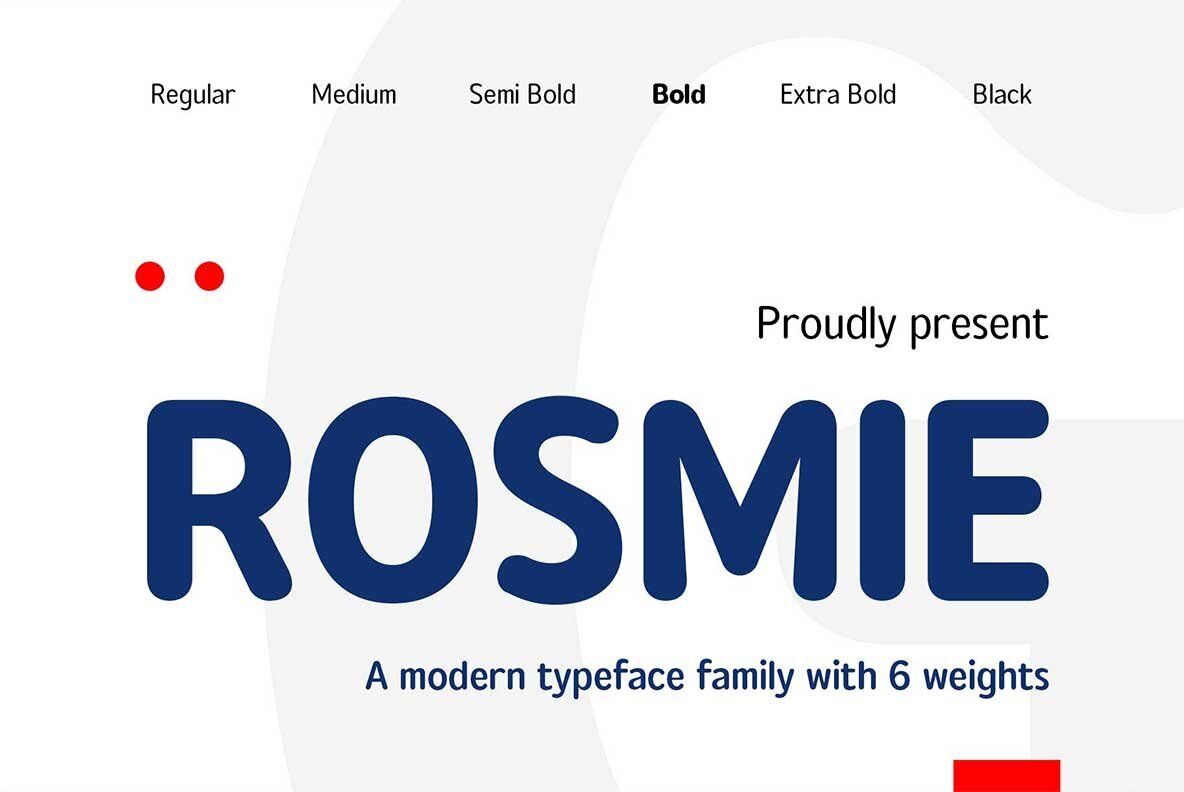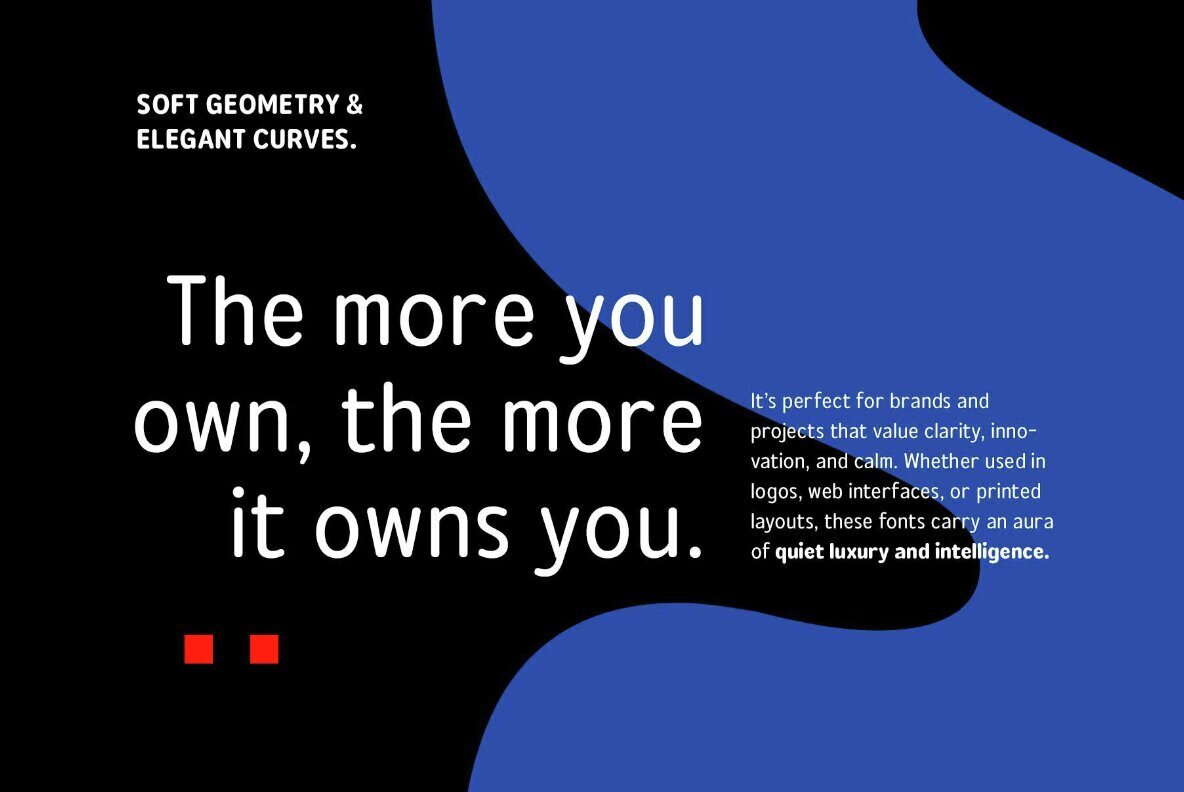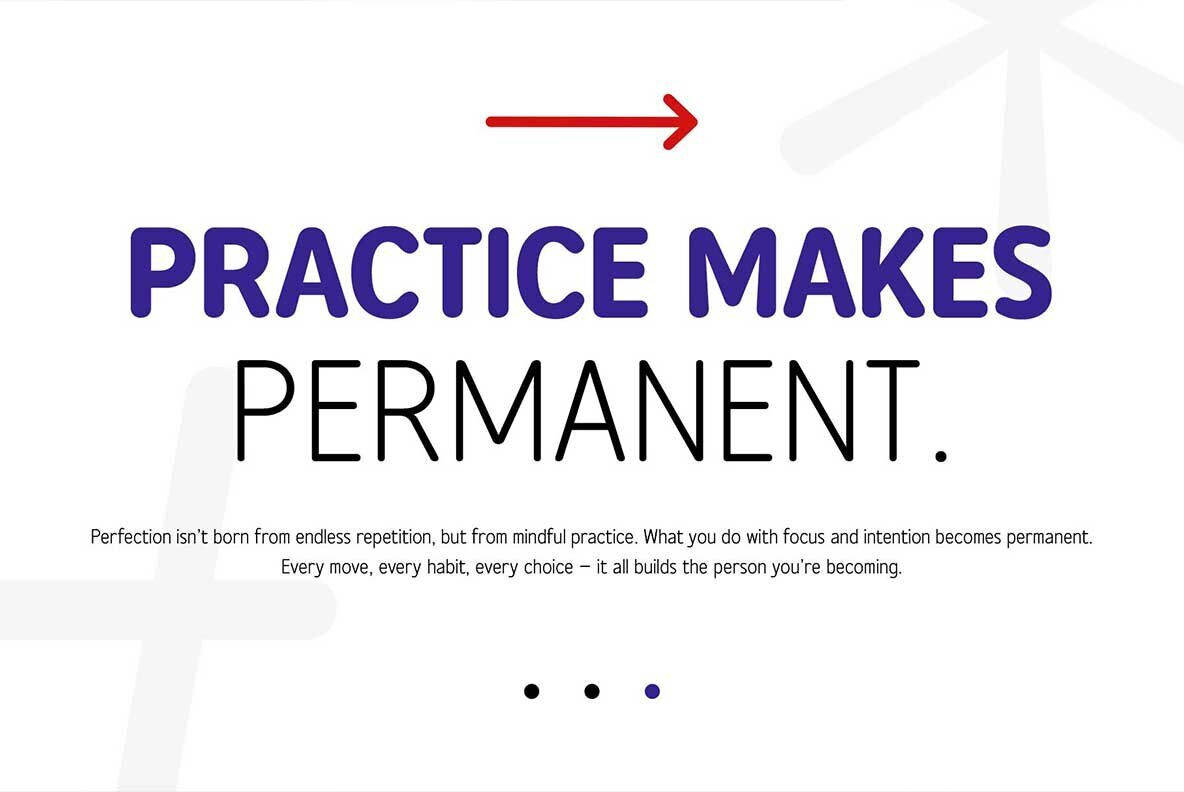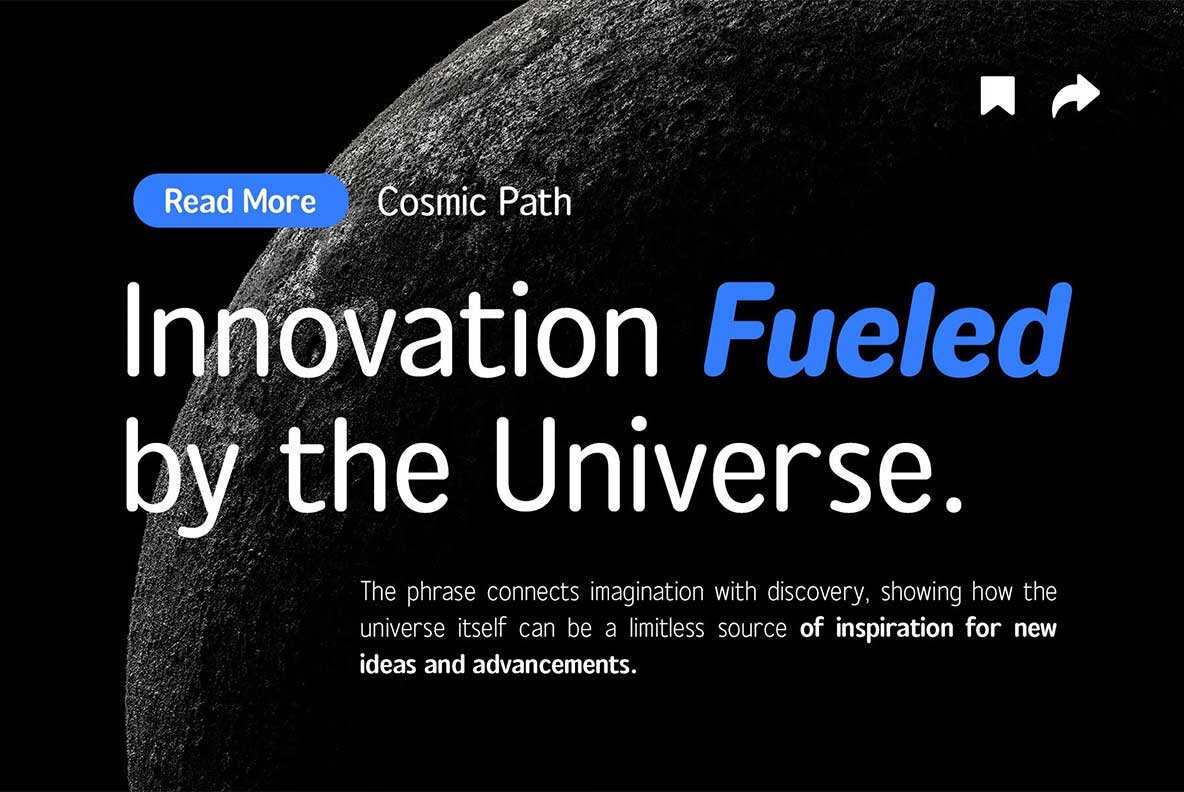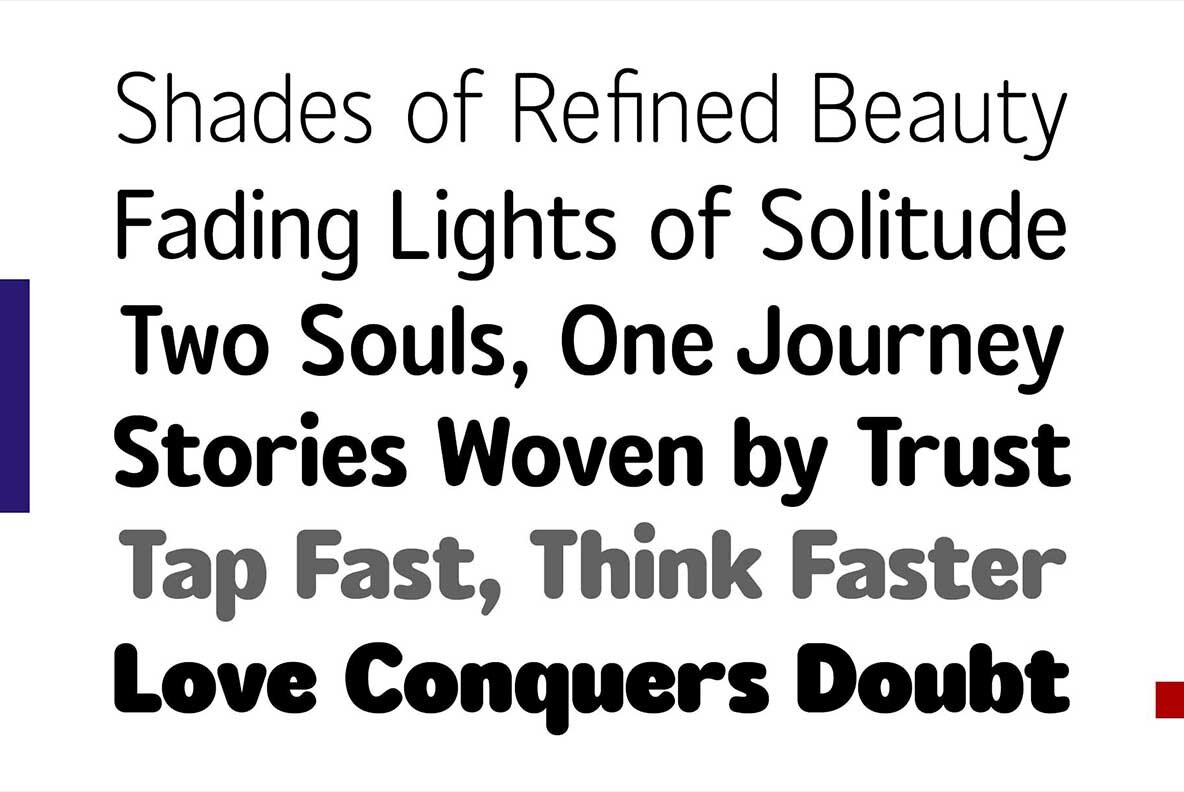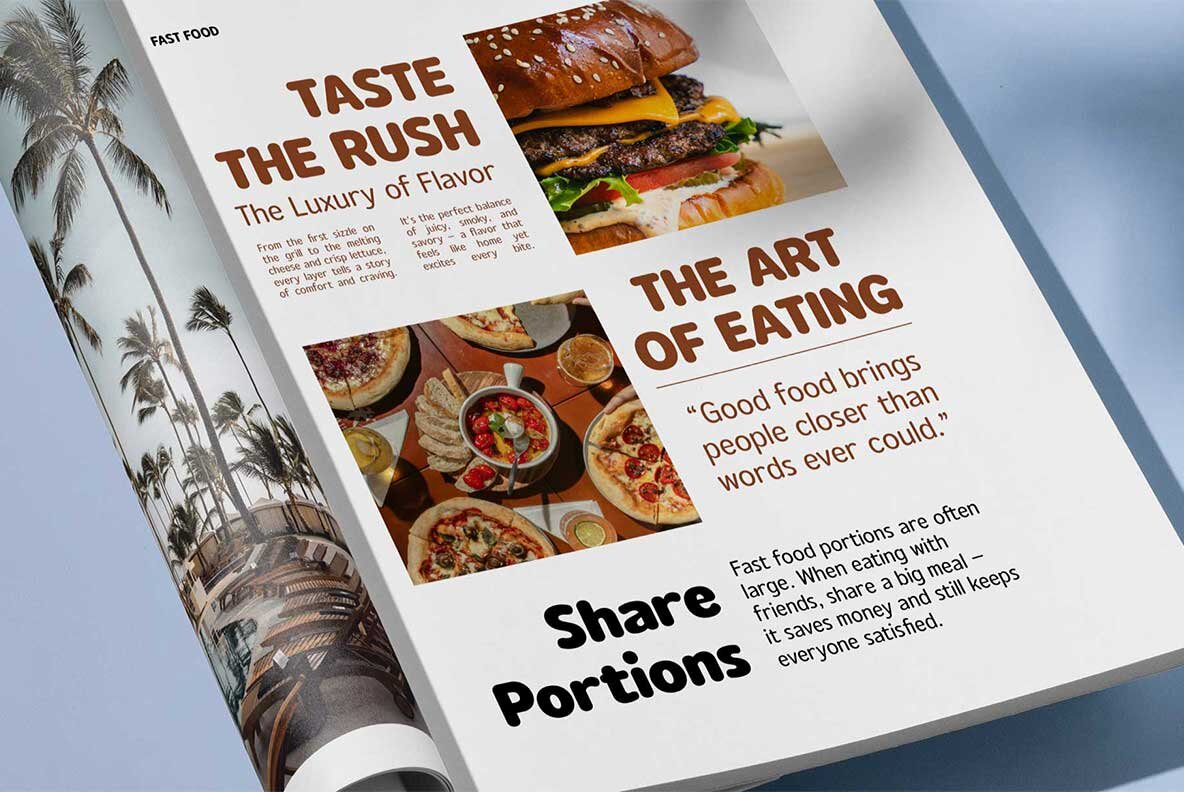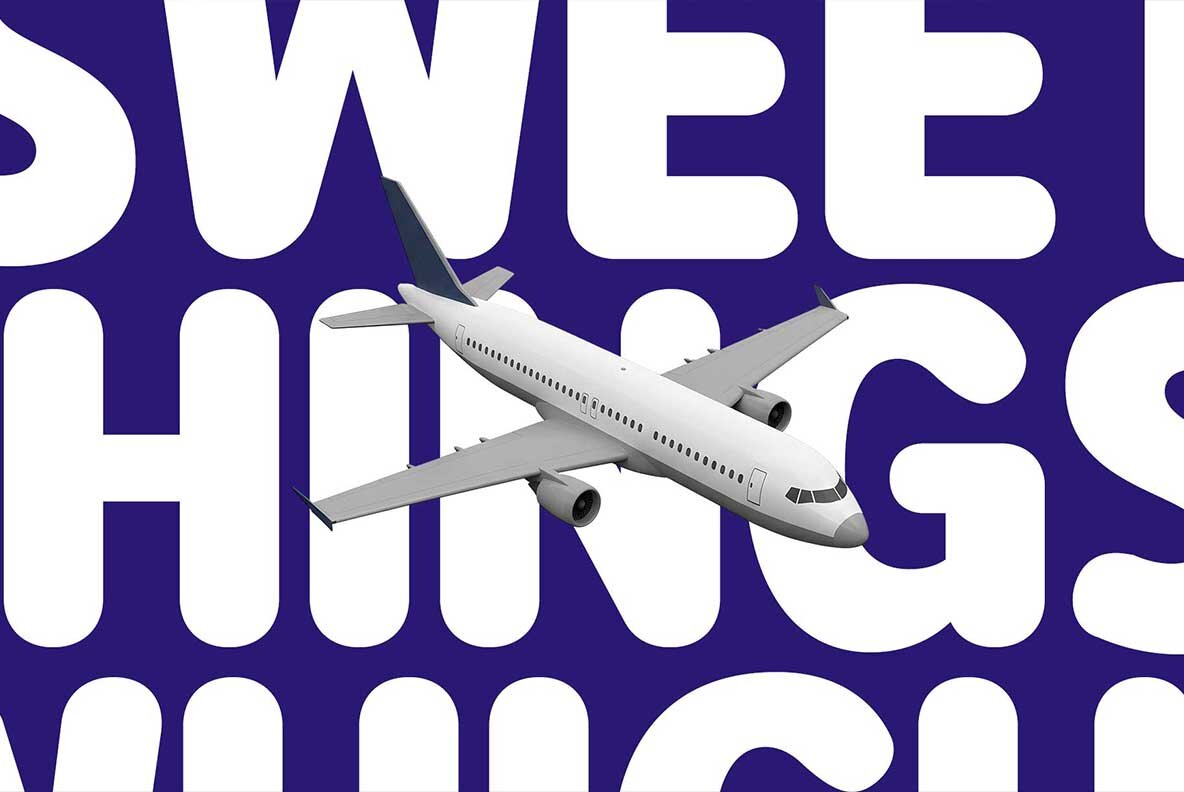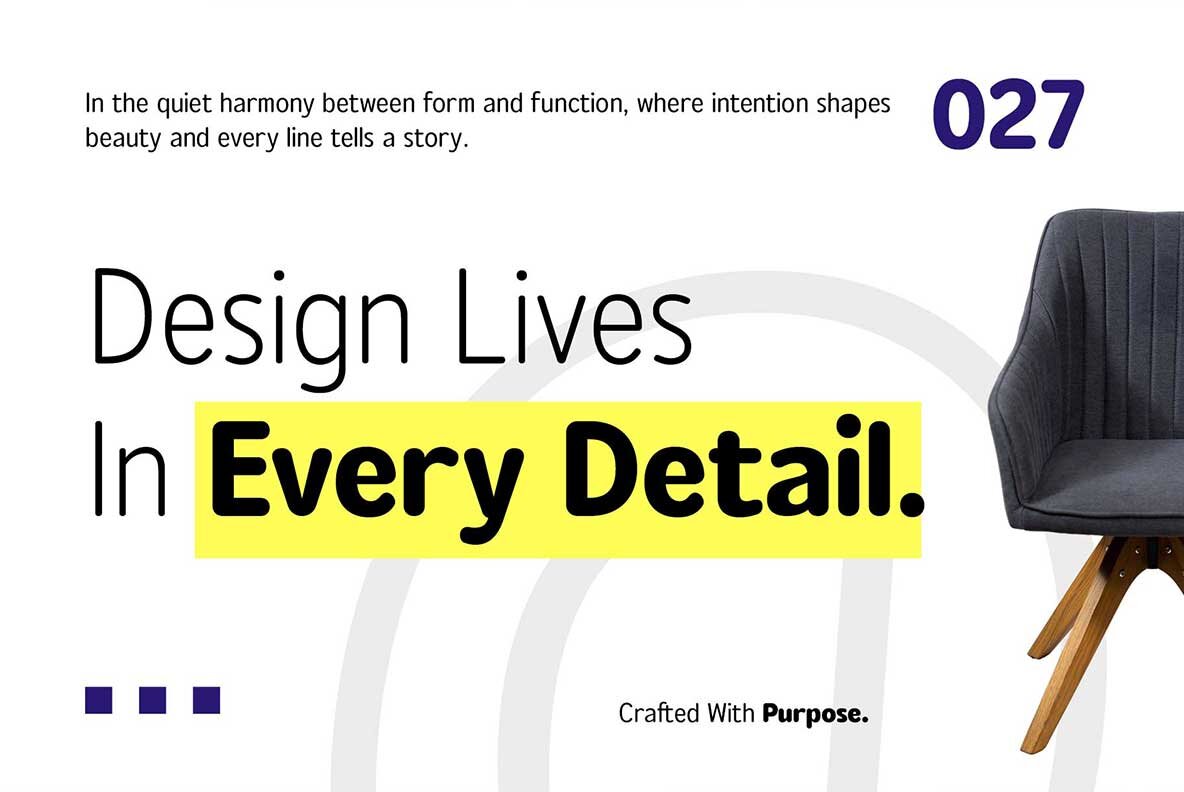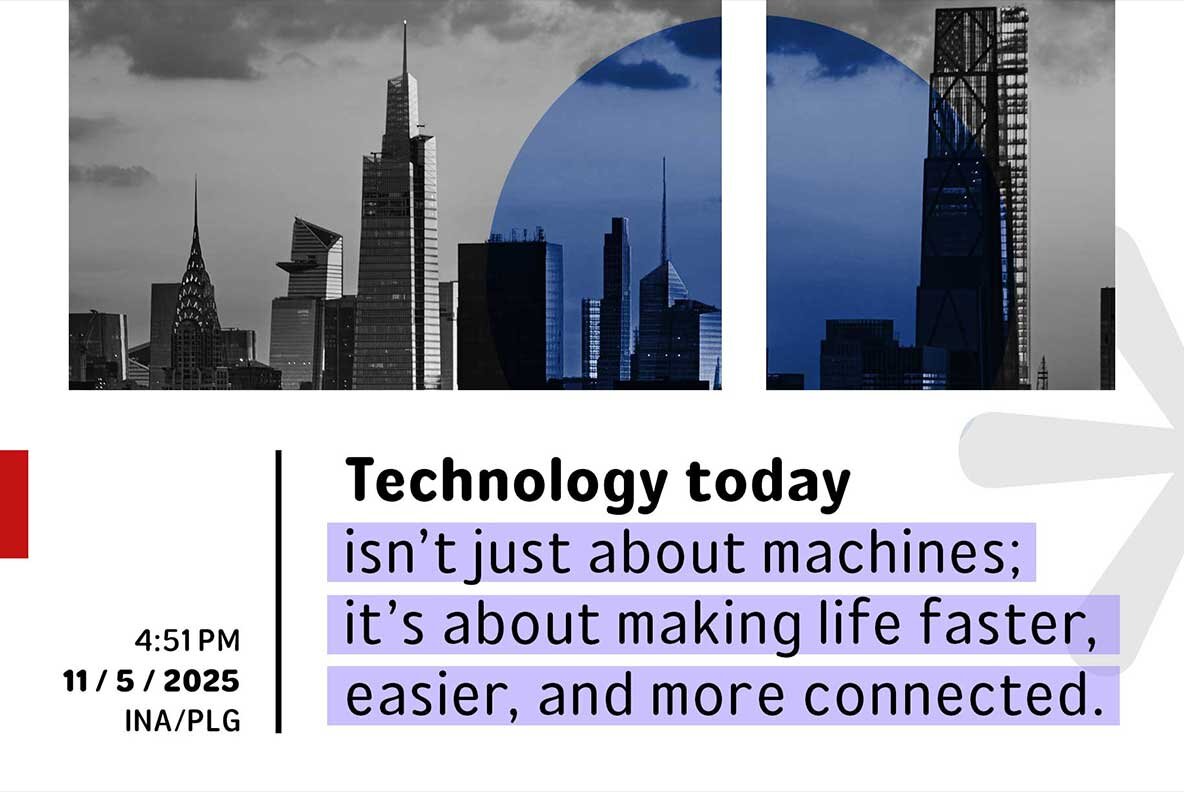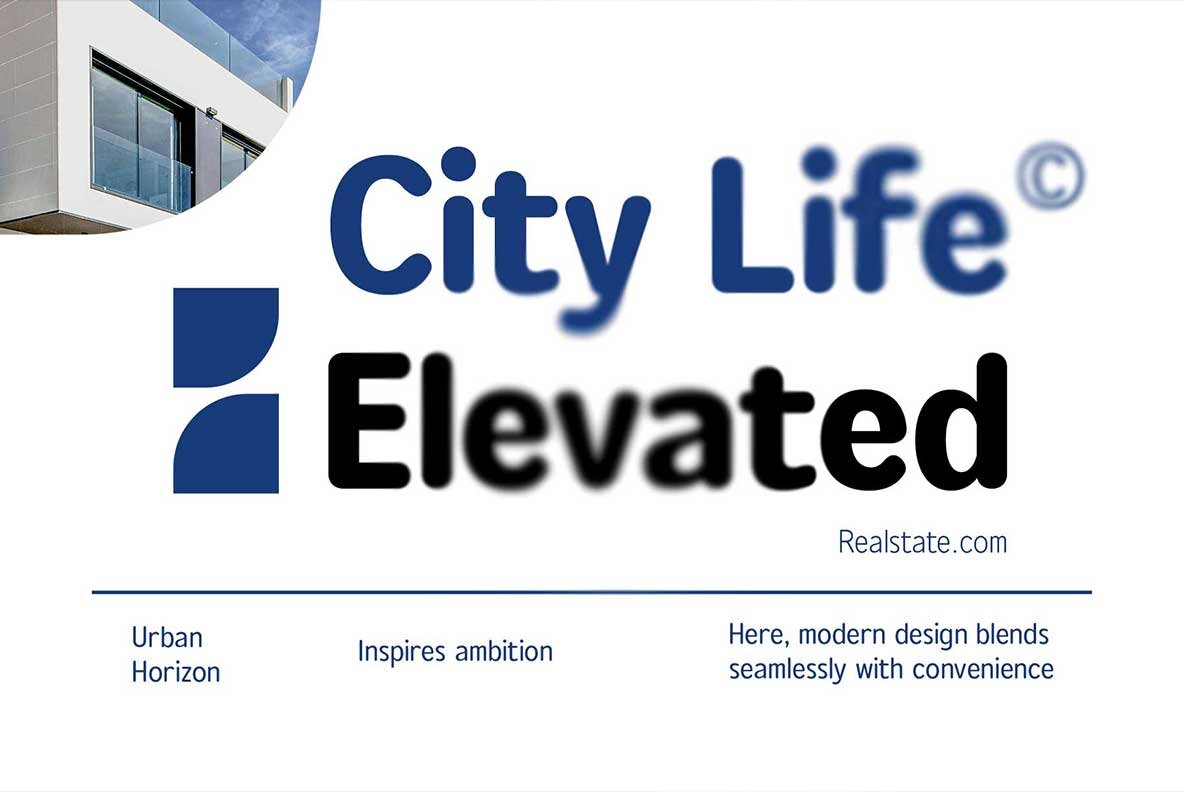
Rosmie Font
Rosmie brings together the approachable geometry of rounded sans-serifs and the spirit of classic 1970s typography. Designed for both display and readability, it adapts easily from bold editorial layouts to carefully set body text. Each weight is crafted to remain legible while introducing character to creative work, making Rosmie a versatile asset in any designer’s type collection. Clean shapes combined with subtle playfulness allow Rosmie to work across a range of applications. Whether used for magazines, logos, books, labels, posters, websites, or branding initiatives, it delivers unified aesthetics and professional confidence. The comprehensive range of six weights and slanted styles encourages typographic flexibility, accommodating diverse visual identities and editorial demands.Rosmie: Rounded Sans-Serif With Playful 1970s Influence